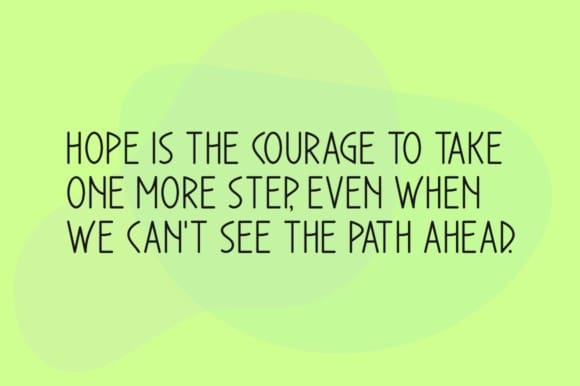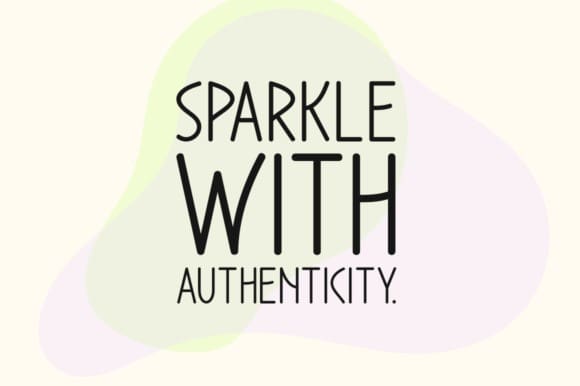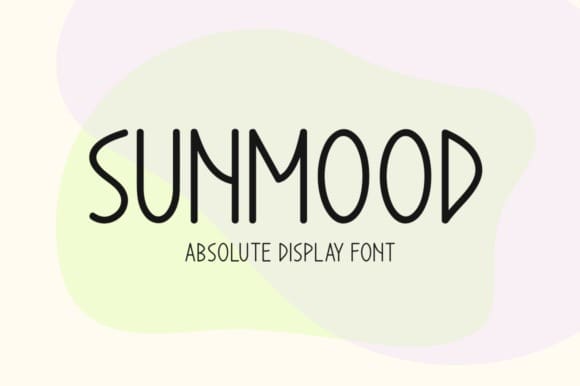
Sunmood Font
Sunmood Font. This font looks great on stationary, logos, t-shirts, papers, print designs, website headers, picture frames, flyers, album covers, posters, and image sliders.